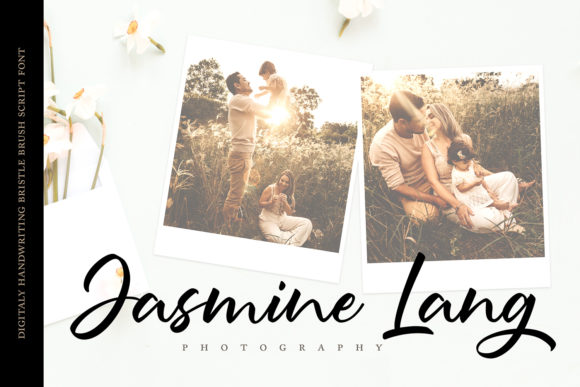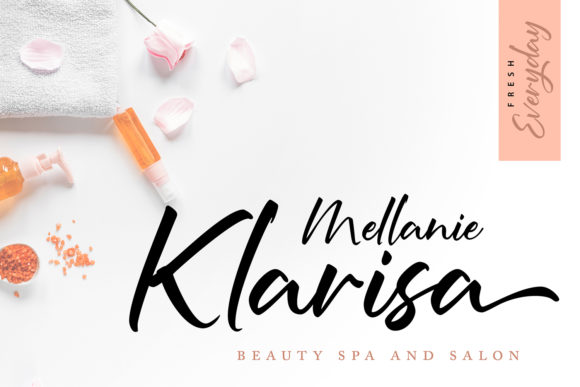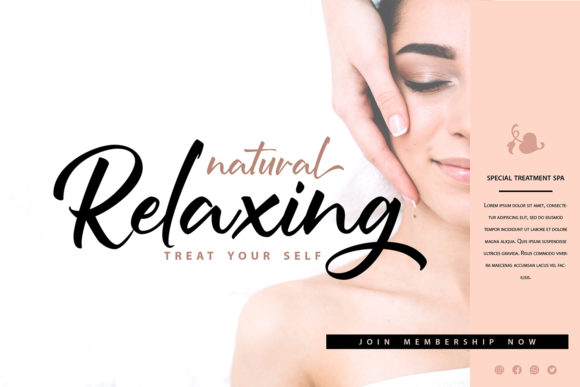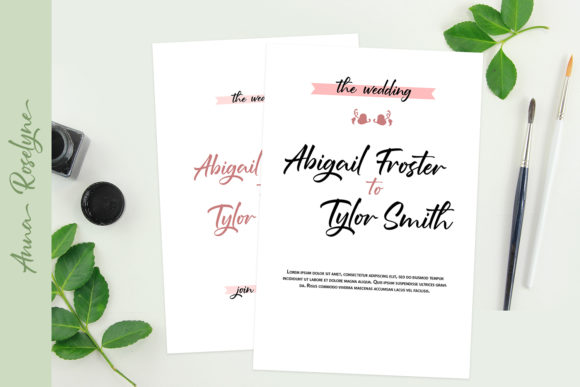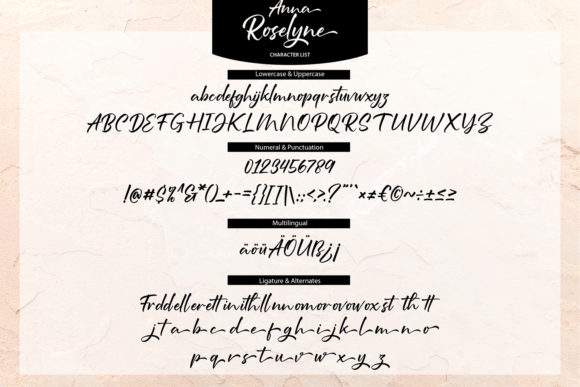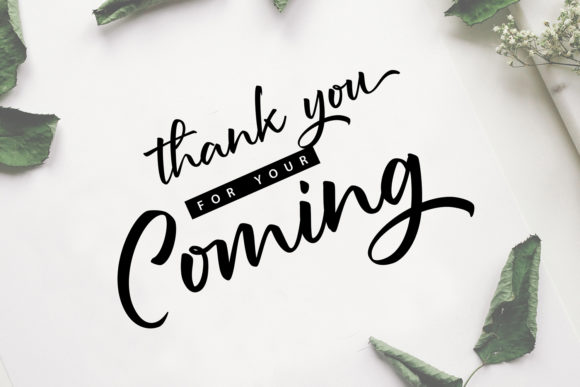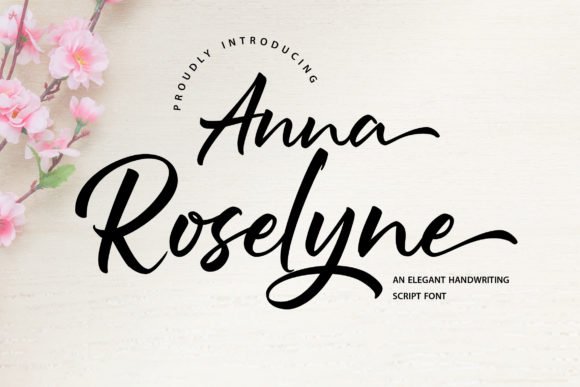
The Perfect Font for Your Next Masterpiece
There’s nothing quite like the feeling of bringing a creative idea to life. Whether it’s a wedding invitation, a birthday card, or a brand new logo, the right font can make all the difference. And when that font is as charming as the Anna Rosselyn Font, you know you’re onto something special.
With its warm, romantic, and jolly personality, the Anna Rosselyn Font is the perfect choice for designers who want to add a touch of whimsy and elegance to their projects. This all-around and flexible handwritten font is not only beautiful, but also incredibly versatile, making it a valuable addition to any designer’s toolkit.
With its PUA encoding, accessing all the glyphs and swashes is a breeze, giving you the freedom to experiment and push the boundaries of your creativity. Whether you’re a seasoned pro or just starting out, the Anna Rosselyn Font is sure to become your go-to choice for any project that needs a little extra magic.
Anna Rosselyn Font Key Features
- Font Family: Anna Rosselyn, Anna Rosselyn Bold, Anna Rosselyn Italic, Anna Rosselyn Bold Italic
- Unique Characteristics: Elegant script font with a touch of sophistication, ideal for formal and creative projects
Anna Rosselyn Font Review
Anna Rosselyn is a beautiful, elegant font that exudes sophistication and refinement. ✨ The refined, cursive script is perfect for creating a sense of luxury and high-end style. The letterforms are connected, flowing smoothly into one another, creating a cohesive and harmonious look.
The font comes in a range of weights, from Light to Bold, allowing you to tailor the look to suit your design needs. The subtle variations in weight and style add depth and visual interest to your typography.
The font’s versatility makes it suitable for a wide range of applications, from high-end branding and marketing materials to editorial and publishing projects.
- Refined, elegant script ✨
- Smooth, connected letterforms ✨
- Versatility across various weights and styles ✨
- Limited expressiveness in certain word settings ⚠️
- May require additional styling to achieve desired look ⚠️
Anna Rosselyn is a stunning font that adds a touch of sophistication to any design. While it may require some additional styling to achieve the desired look, its elegance and refinement make it a valuable addition to any designer’s toolkit.
Getting the Most Out of Anna Rosselyn Font
Anna Rosselyn Font is a versatile and elegant font that can be used for a variety of applications, including wedding invitations, business cards, and marketing materials.
To get the most out of Anna Rosselyn Font, try pairing it with complementary fonts and using it in creative and unique ways, such as:
- Using it for headings and titles.
- Pairing it with bold or sans-serif fonts for contrast.
- Using it for quotes or captions.
Anna Rosselyn Font is commonly used for: